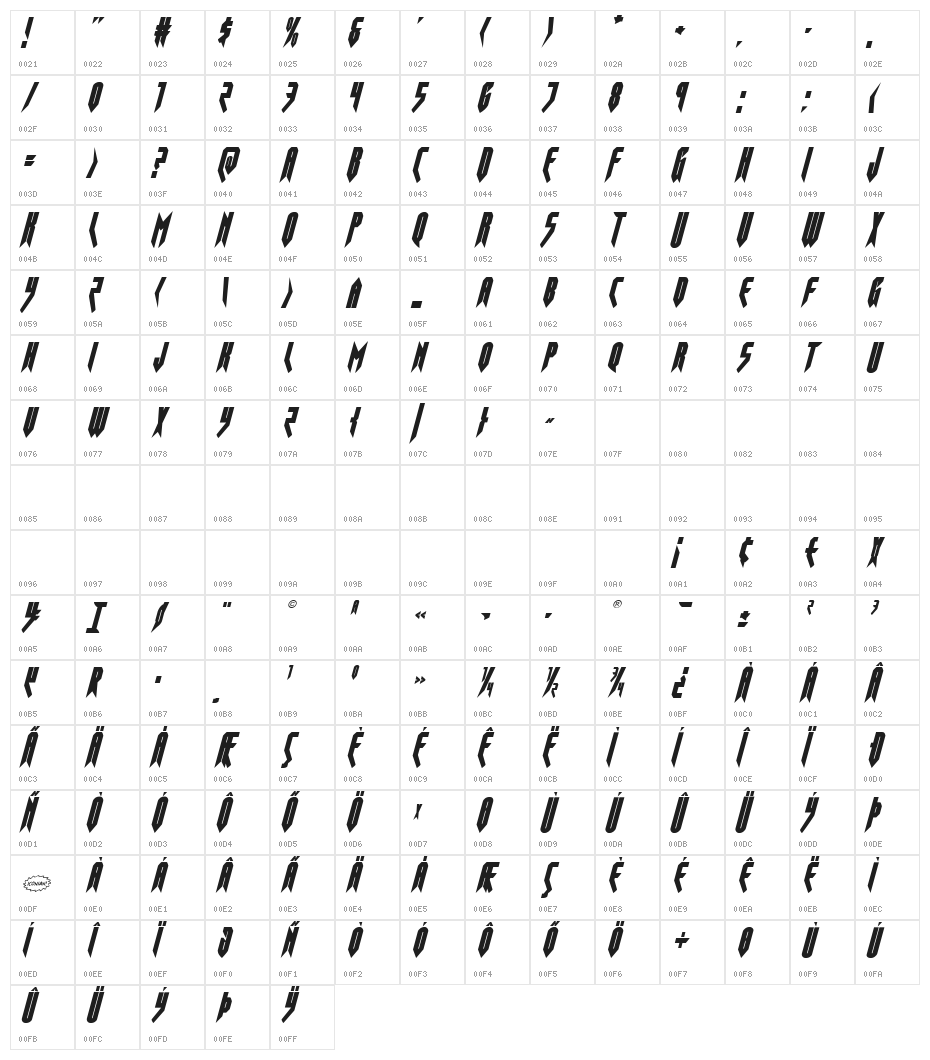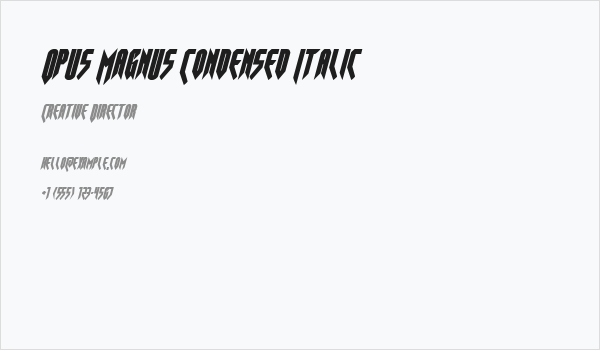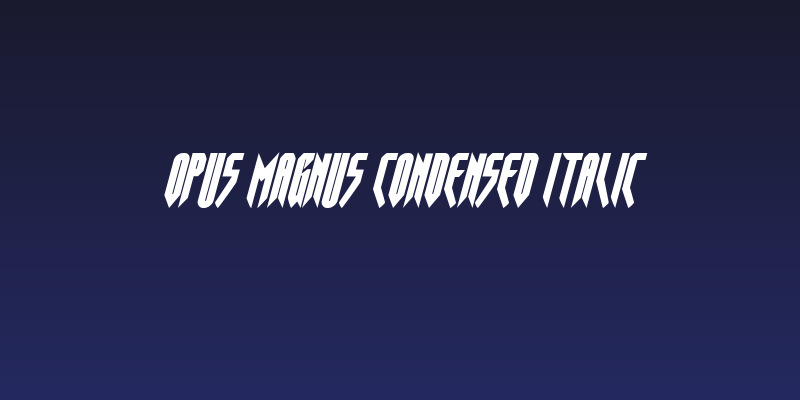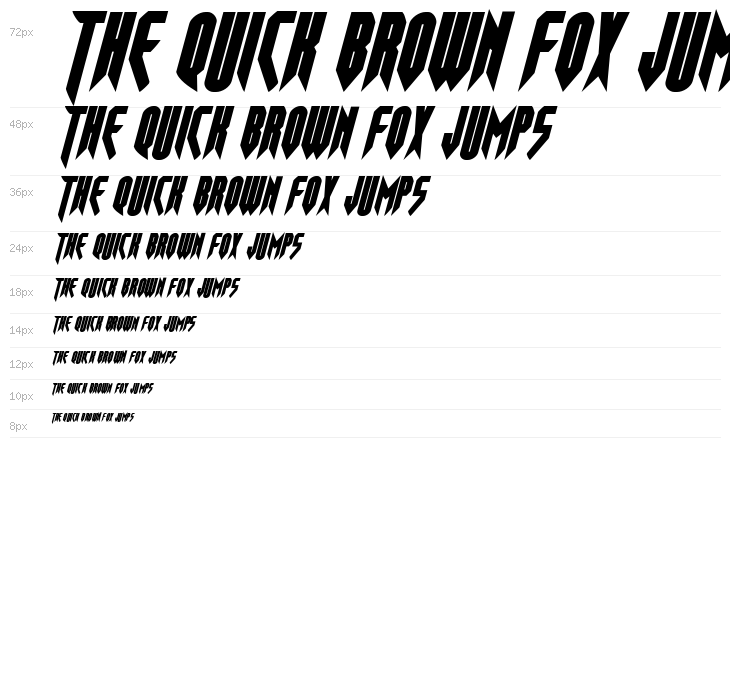
Opus Magnus Condensed Italic Font
Opus Magnus Condensed Italic Description
This font features a bold, angular design with a strong geometric influence, creating a striking and modern appearance. The condensed letterforms are sharply cut, with exaggerated angles and a dynamic slant that gives a sense of motion and energy. The uppercase and lowercase letters maintain a consistent style, while the numerals and special characters complement the overall aesthetic. The font's aggressive and futuristic look makes it ideal for attention-grabbing designs.
| Proposed Projects | Ideal for sports branding, music album covers, video game titles, and edgy poster designs. |